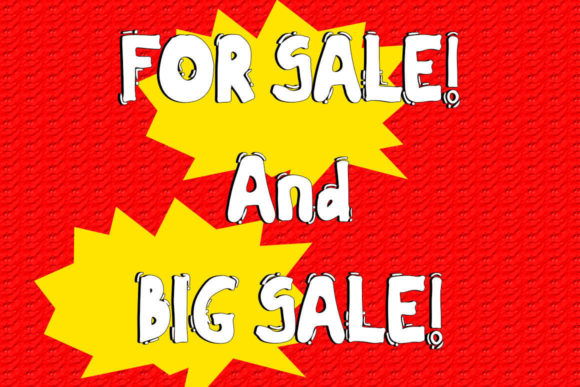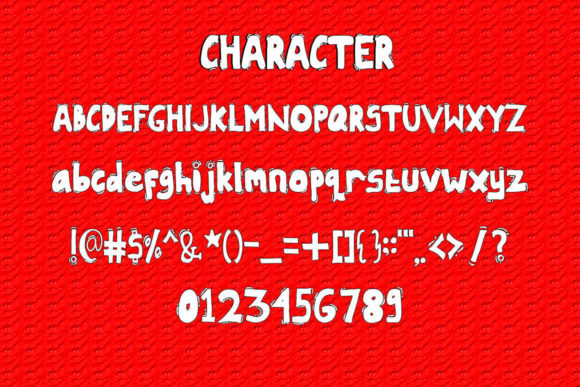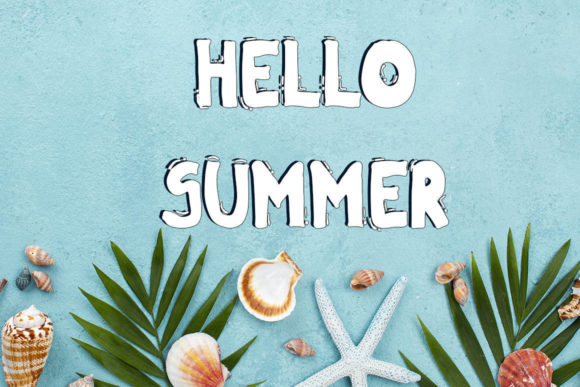
The Ababylo Font: A Game-Changer for Your Designs
Have you ever been in the middle of a design project, and suddenly, you’re stuck on finding the perfect font? I recall a recent experience where I was working on a client’s branding project, and I just couldn’t find a font that captured the playful yet professional vibe they were looking for. That’s when I stumbled upon the Ababylo font, and let me tell you, it was a total game-changer! 🎉
An Honest Review of Ababylo Font
As a designer, I’m always on the lookout for fonts that can elevate my designs and make them stand out. Here’s my honest review of the Ababylo font:
What I Love About Ababylo Font
- ✨ Unique and Playful: Ababylo is a one-of-a-kind display font that adds a touch of whimsy to any design.
- ✅ Versatile: This font is incredibly versatile and can fit a wide range of designs, from modern and sleek to playful and fun.
- 💥 Attention-Grabbing: The Ababylo font is sure to grab attention and make your designs pop!
While Ababylo is an amazing font, there are a few quirks to keep in mind:
- 🤔 Limited Use Cases: Due to its playful nature, Ababylo might not be the best fit for very formal or traditional designs.
- ⚠️ Legibility at Small Sizes: As with many display fonts, Ababylo may not be legible at very small sizes, so be sure to use it at larger sizes for optimal impact.
The Backstory of Ababylo Font
The Ababylo font was designed by a team of creatives who wanted to create a unique and playful display font that would add a touch of whimsy to any design. Inspired by the beauty of hand-drawn typography, Ababylo is a one-of-a-kind font that’s sure to make your designs stand out.
Q: What type of designs is Ababylo best suited for?
A: Ababylo is perfect for designs that require a playful and unique touch, such as branding, packaging, and advertising.
Q: Is Ababylo a difficult font to read?
A: Ababylo is a display font, so it’s best used at larger sizes. At smaller sizes, it may be difficult to read.